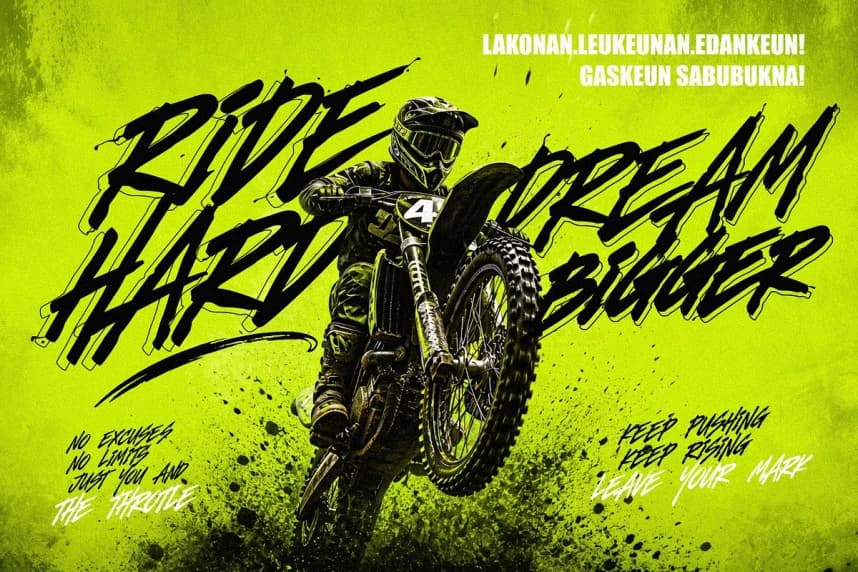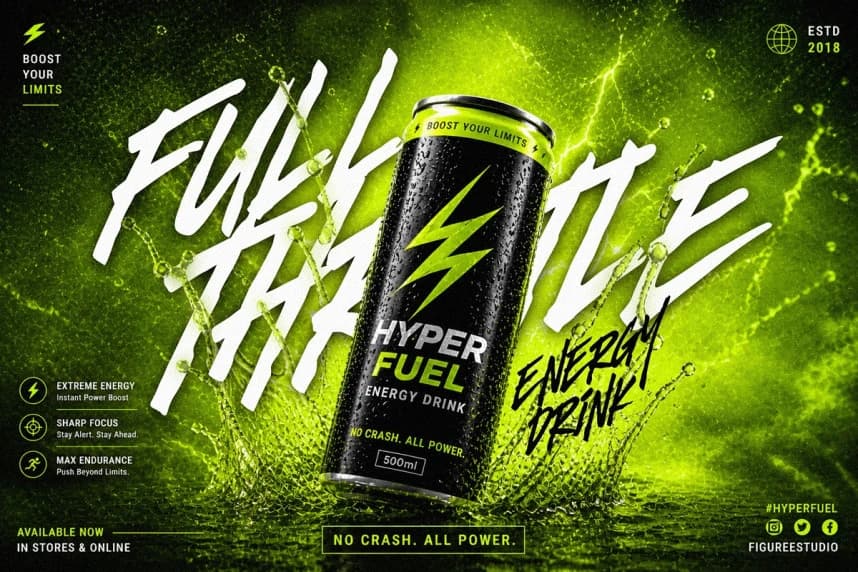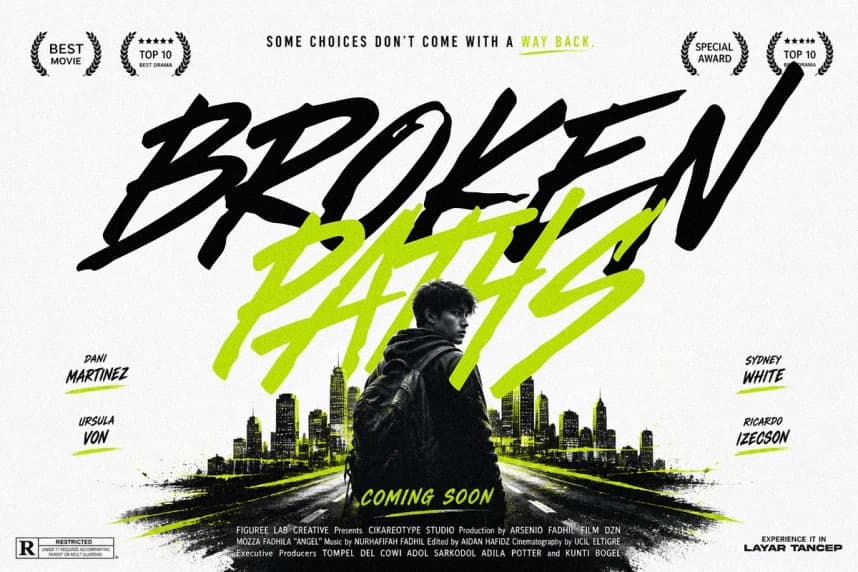
Hyper Squad Font
Hyper Squad Font – Freestyle Brush Font is designed to bring natural movement and expressive energy into your typography. Inspired by hand-painted strokes, this font delivers an organic brush style that feels spontaneous and full of character.